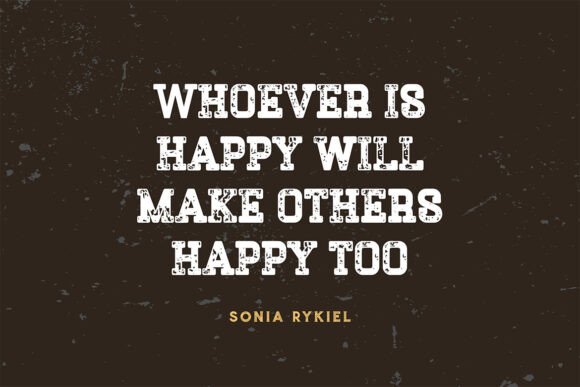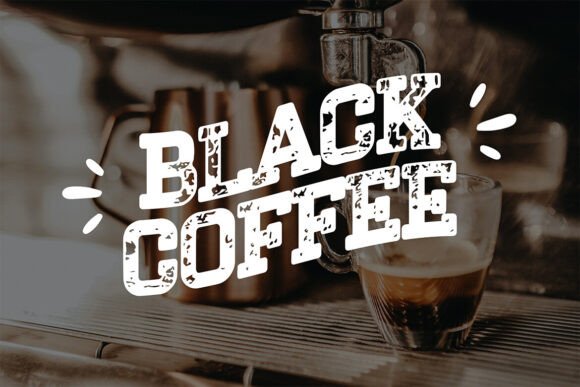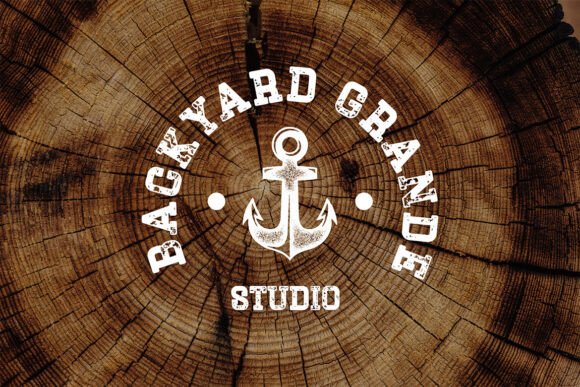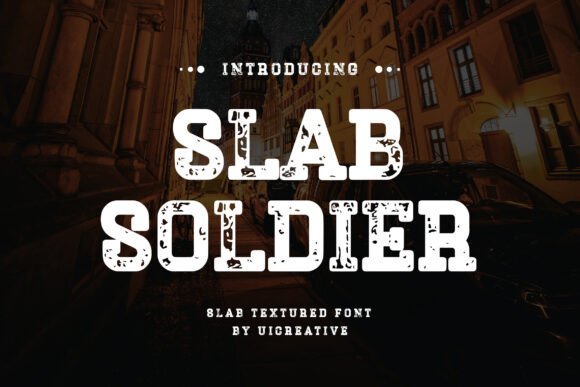
Introduction to Slab Soldier Font
Slab Soldier Modern Slab Serif Font.
The modern display font feels beautiful classy, elegant, and stylish This font is ideally suited for a wide variety of projects, such as signature, stationery, logo, wedding, typography quotes, magazine or book covers, website headers, branding, and more.
Key Features of Slab Soldier Font
Why Choose Slab Soldier Font?
Slab Soldier Font offers exceptional quality and versatility, making it a valuable addition to your design toolkit. Whether you’re creating for personal projects or commercial use, Slab Soldier Font delivers professional results.